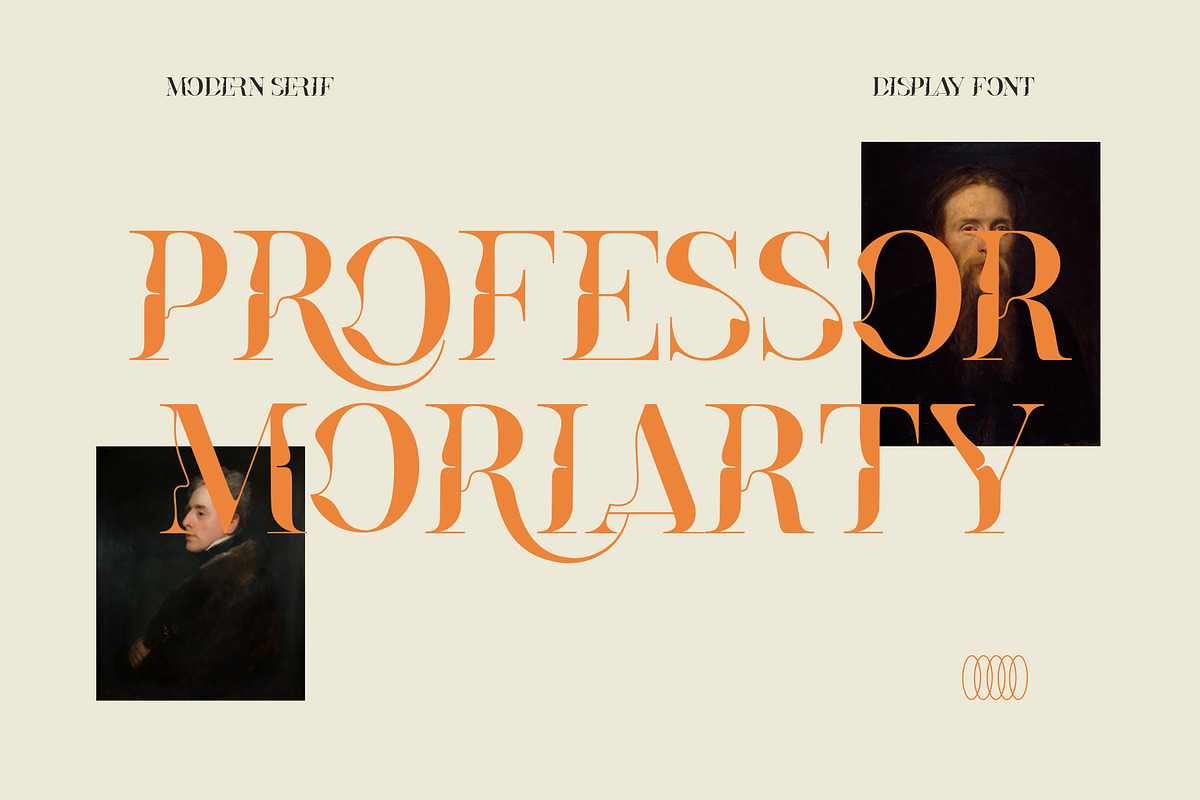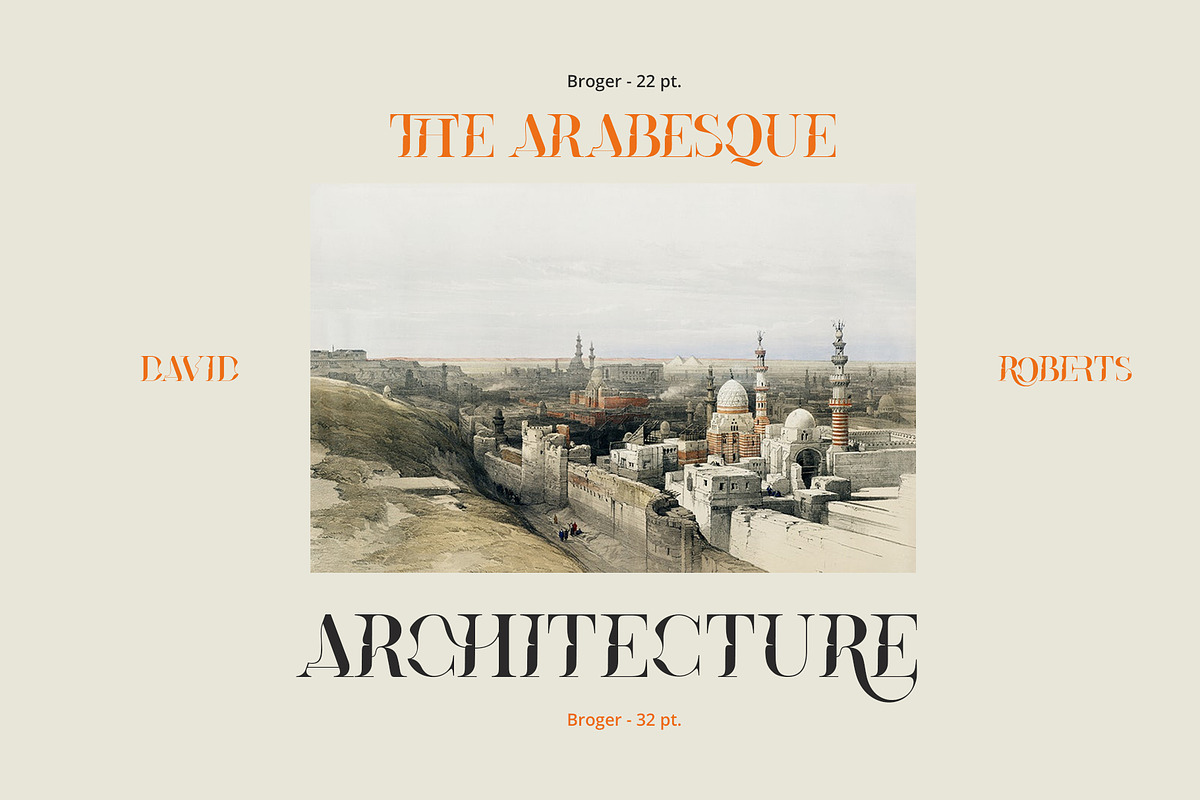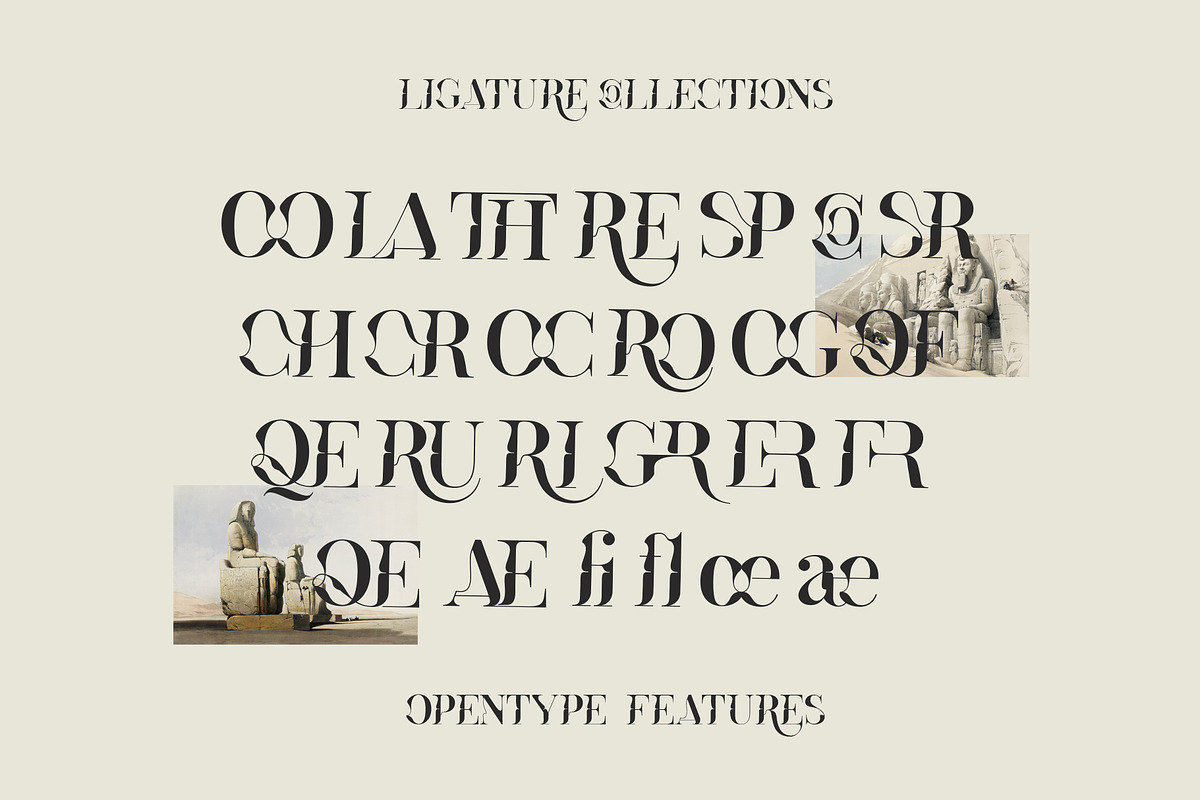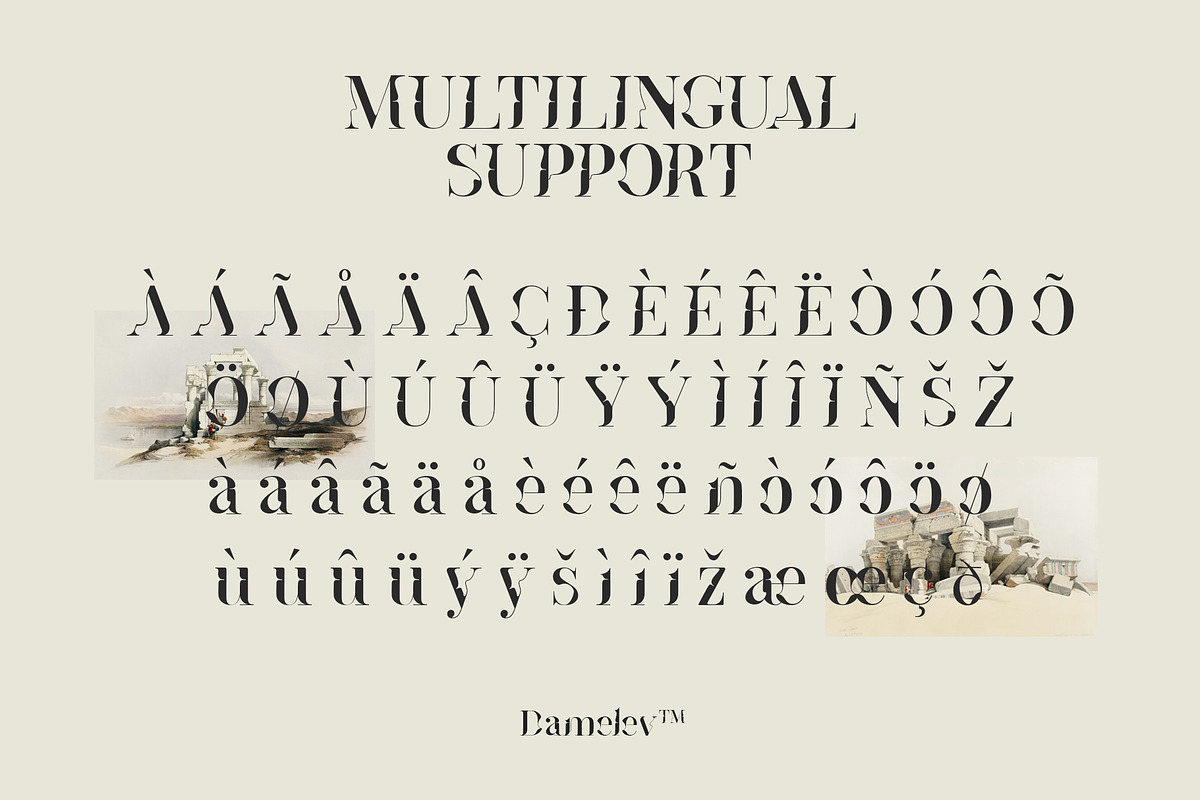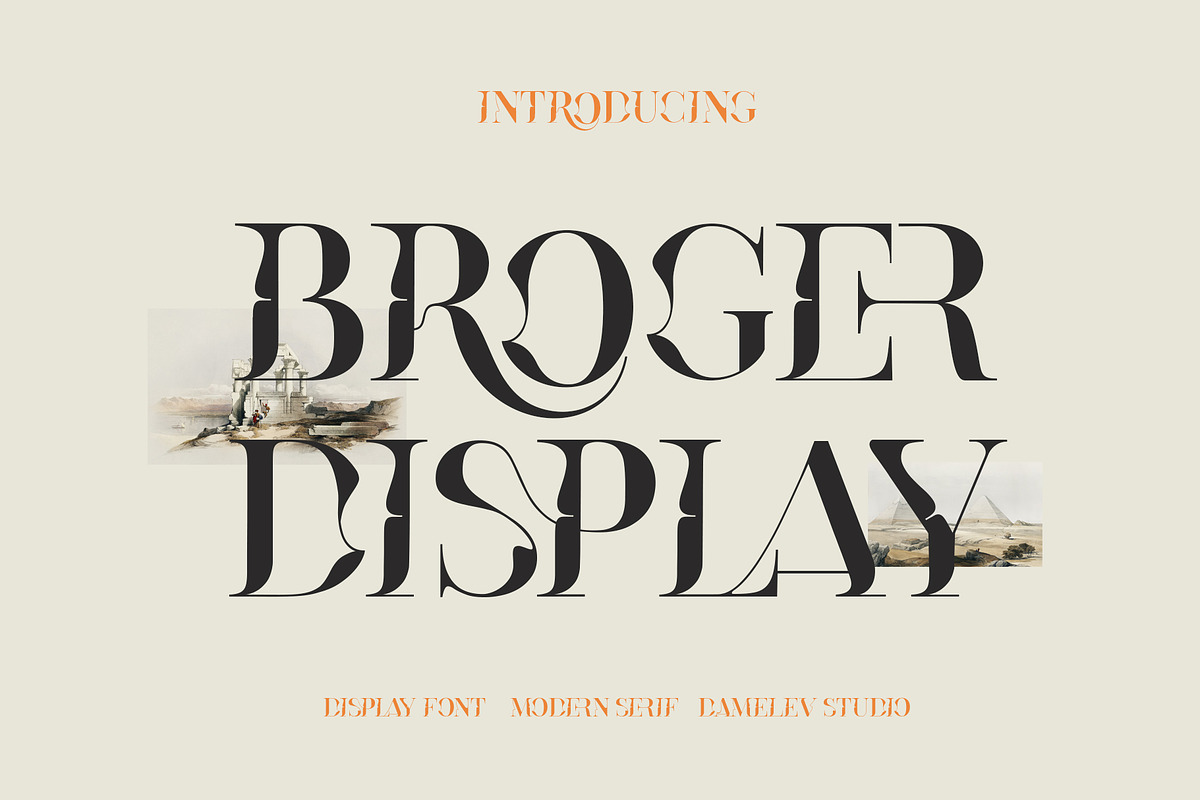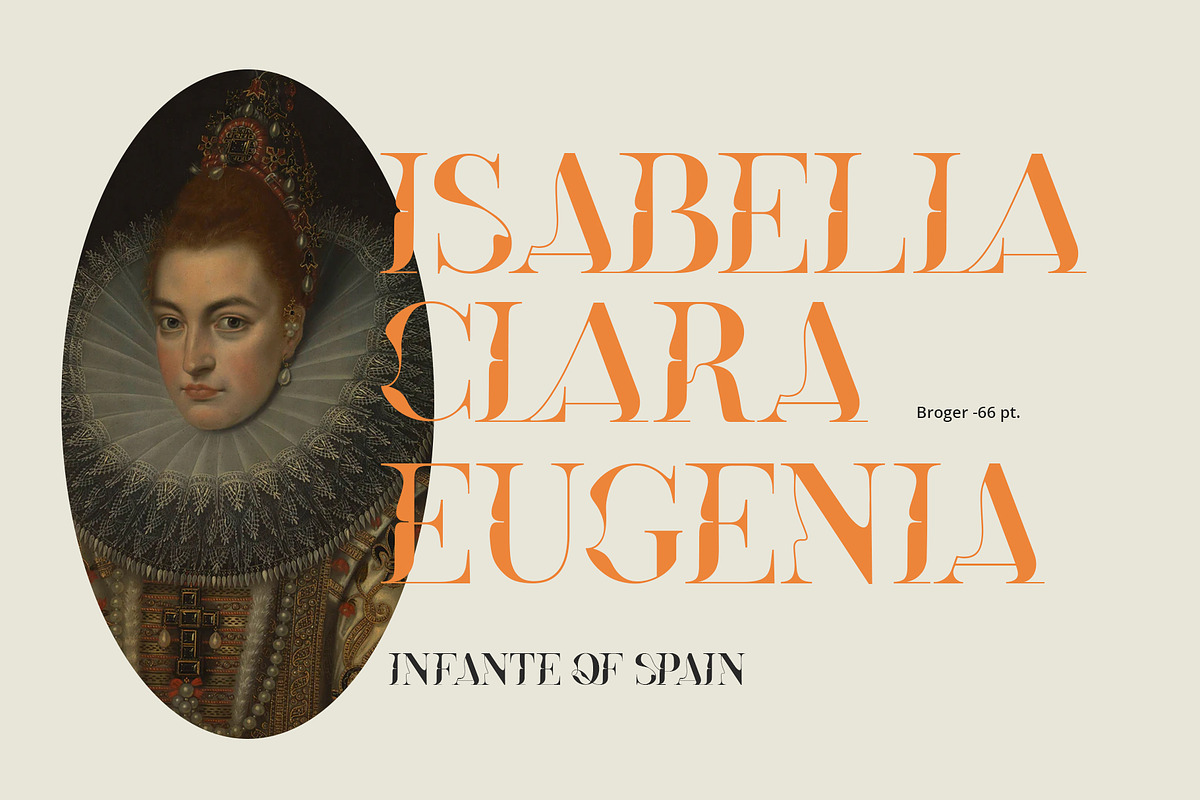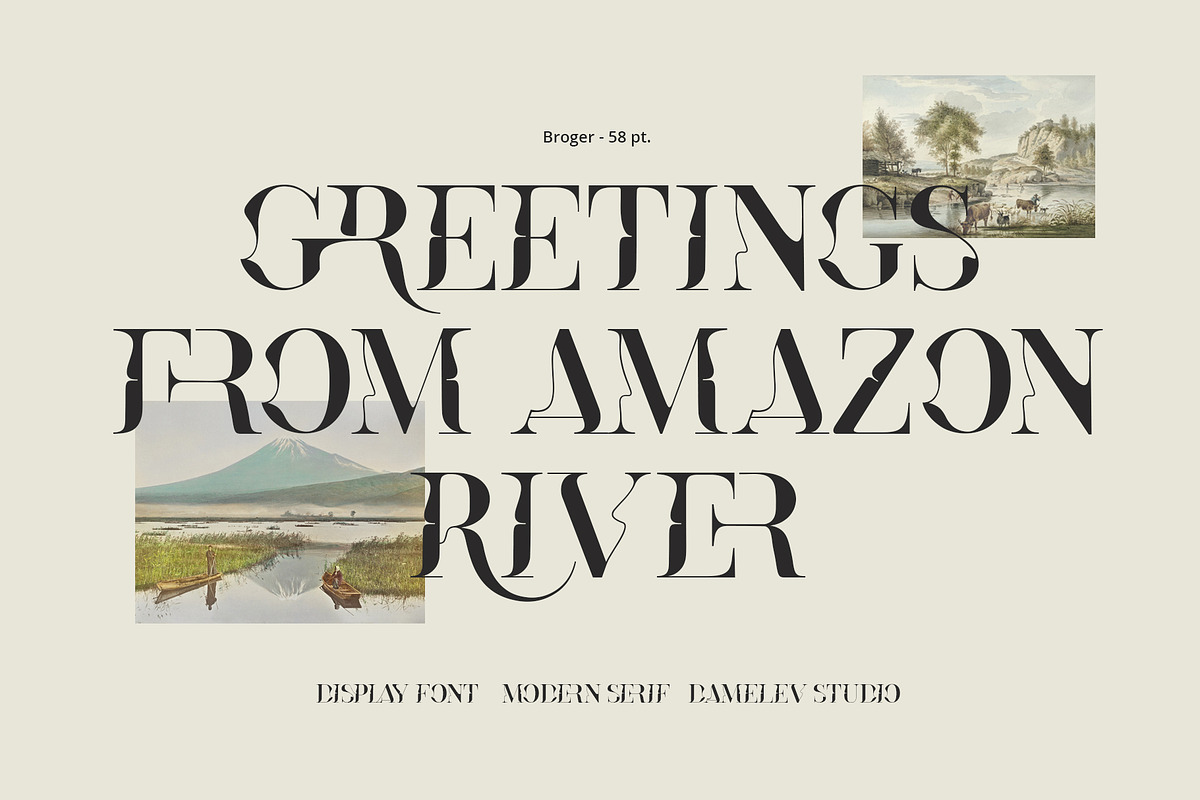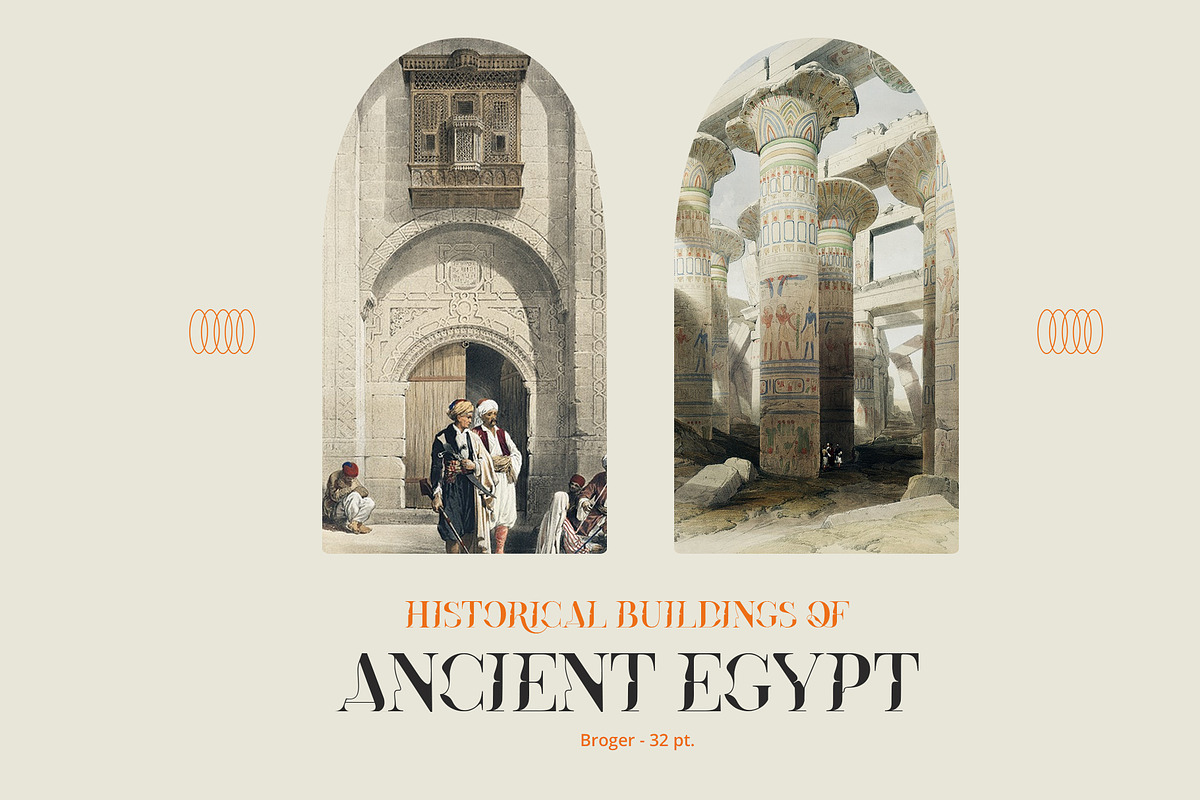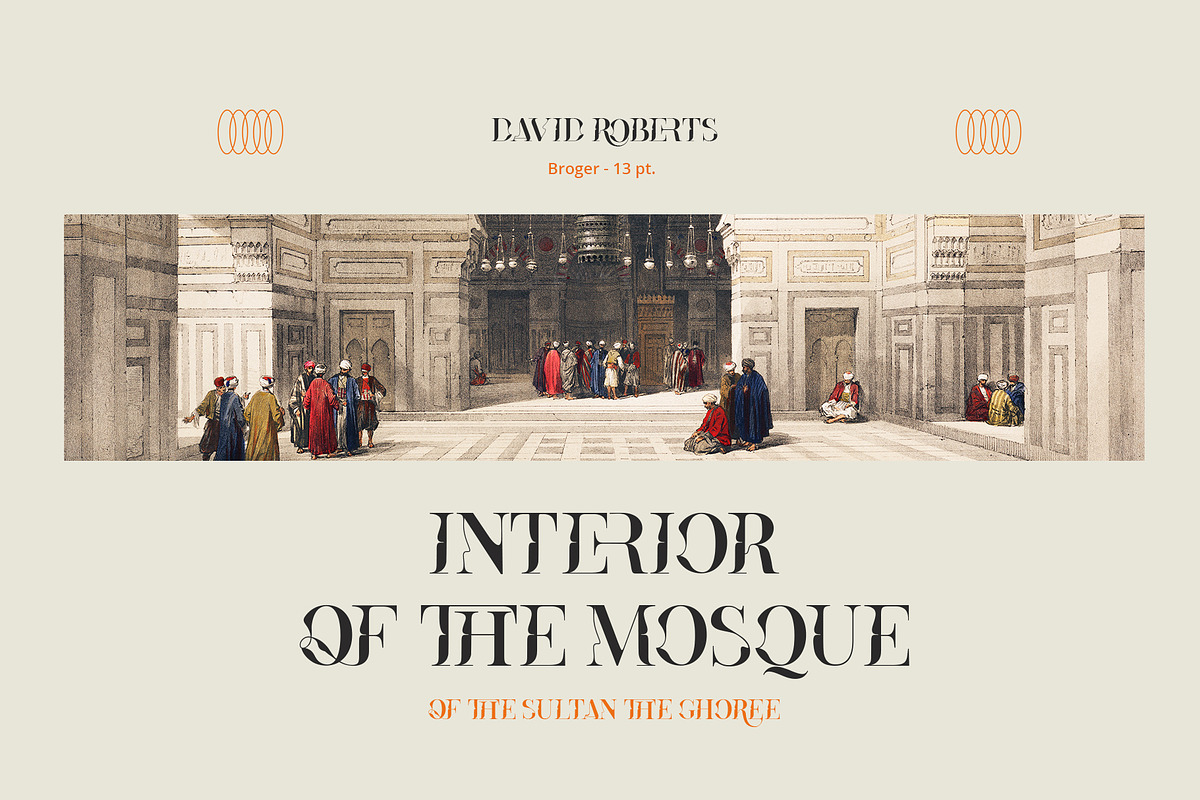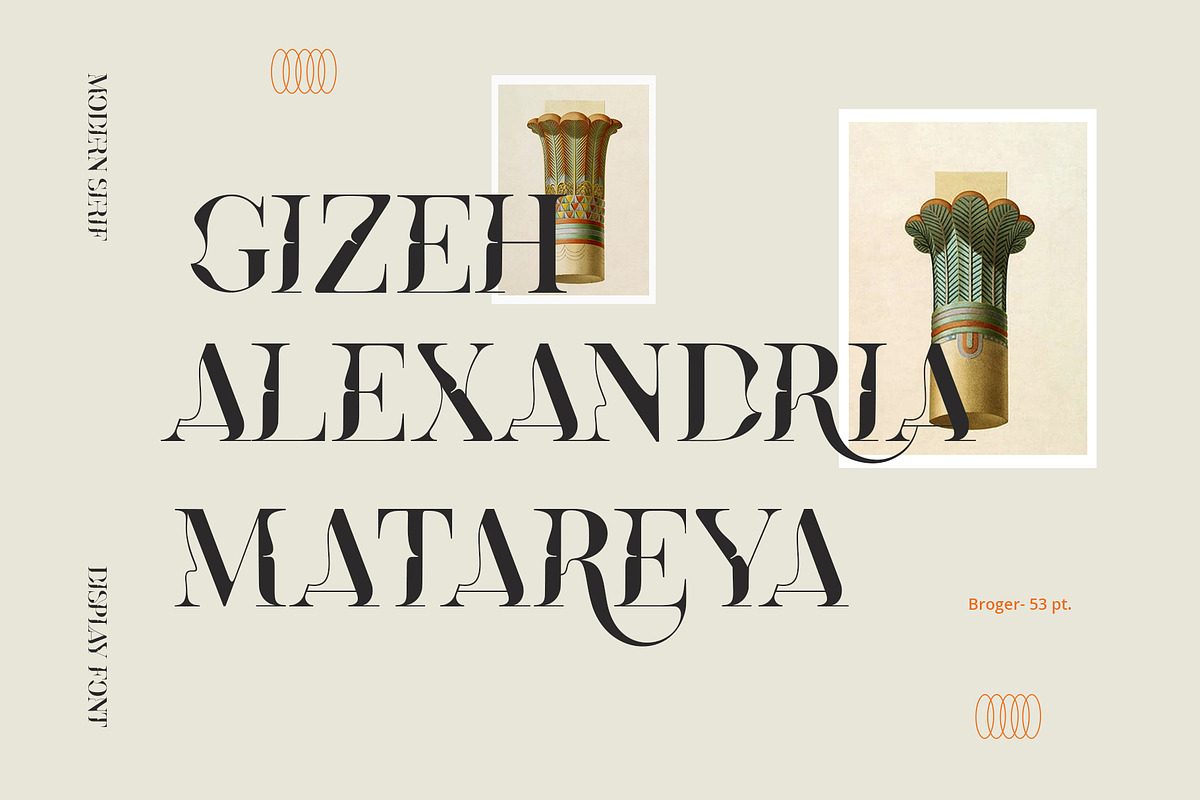
Broger Display
Broger Display belongs to the "twisted shape" category with beautiful ligatures, it's a little hard to read in small sizes but very awesome when in large sizes, that give any headline an elegant appearance. Broger Display presents luxury, glamour, exuberance, and beauty.
It works perfectly for creative project such as logo, T-shirt / apparel, badge, invitation, packaging,headline, poster, magazine, greeting card, and wedding invitation. You can access the open type features and multilingual on mostly Adobe programs, such as Adobe Indesign, Adobe Illustrator, Adobe photoshop etc.